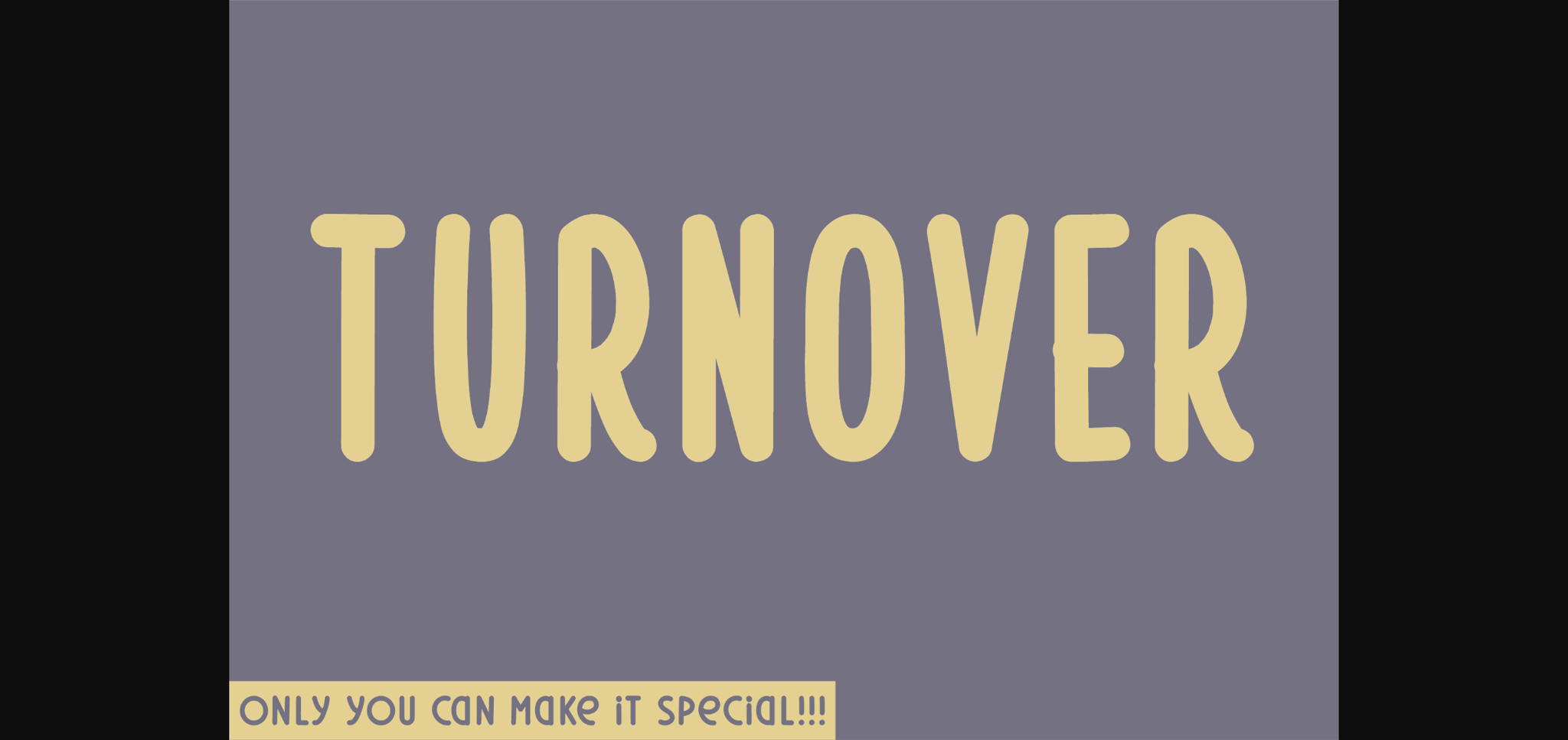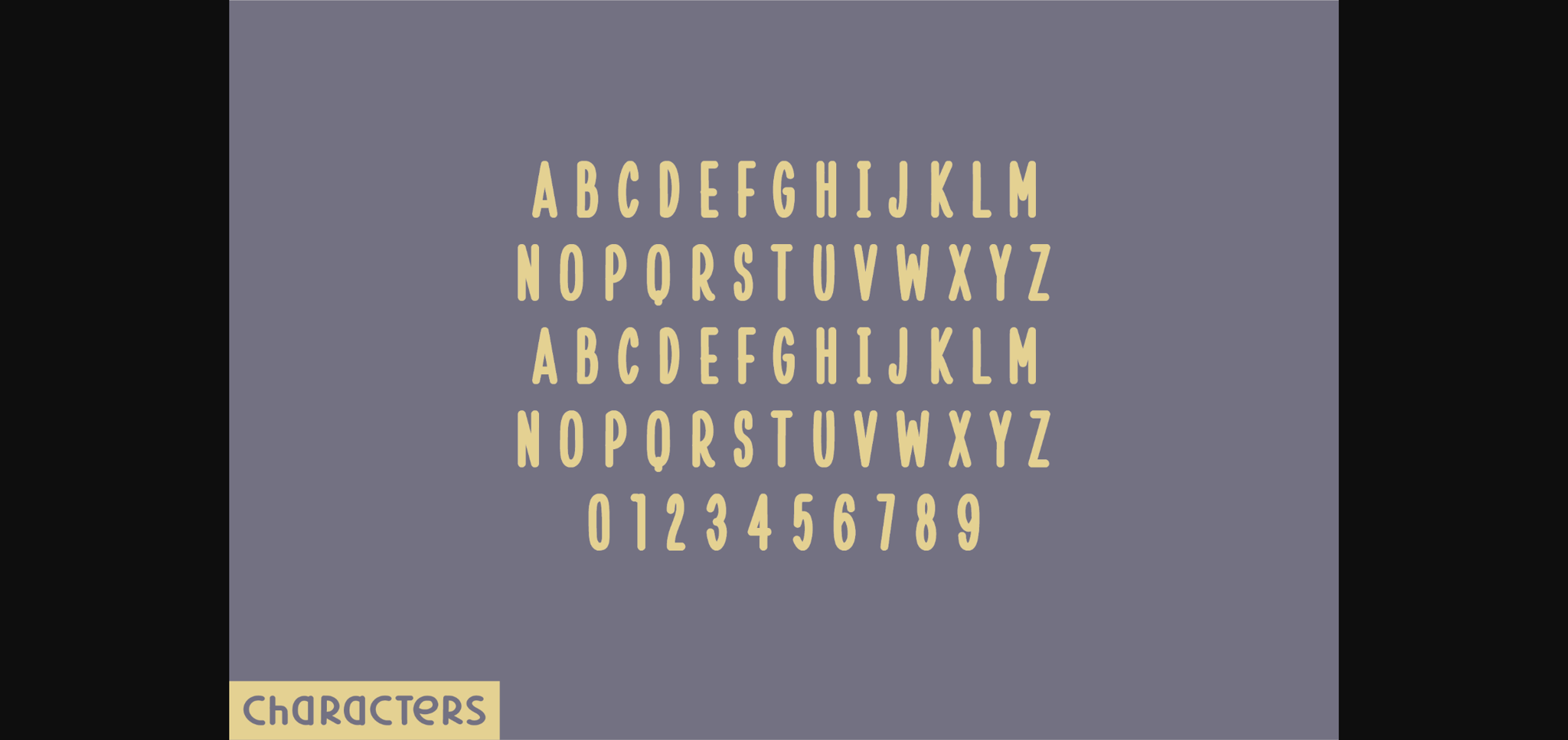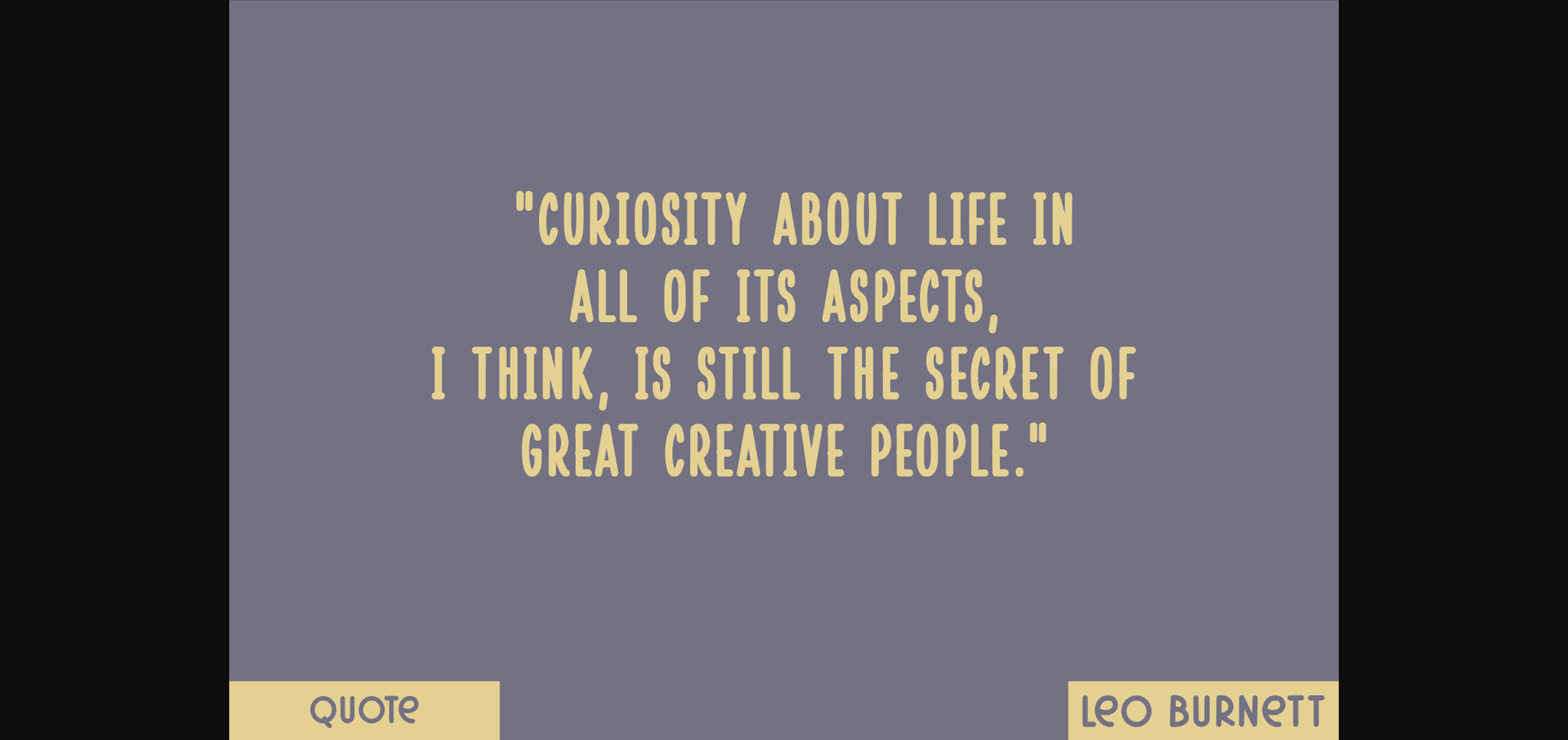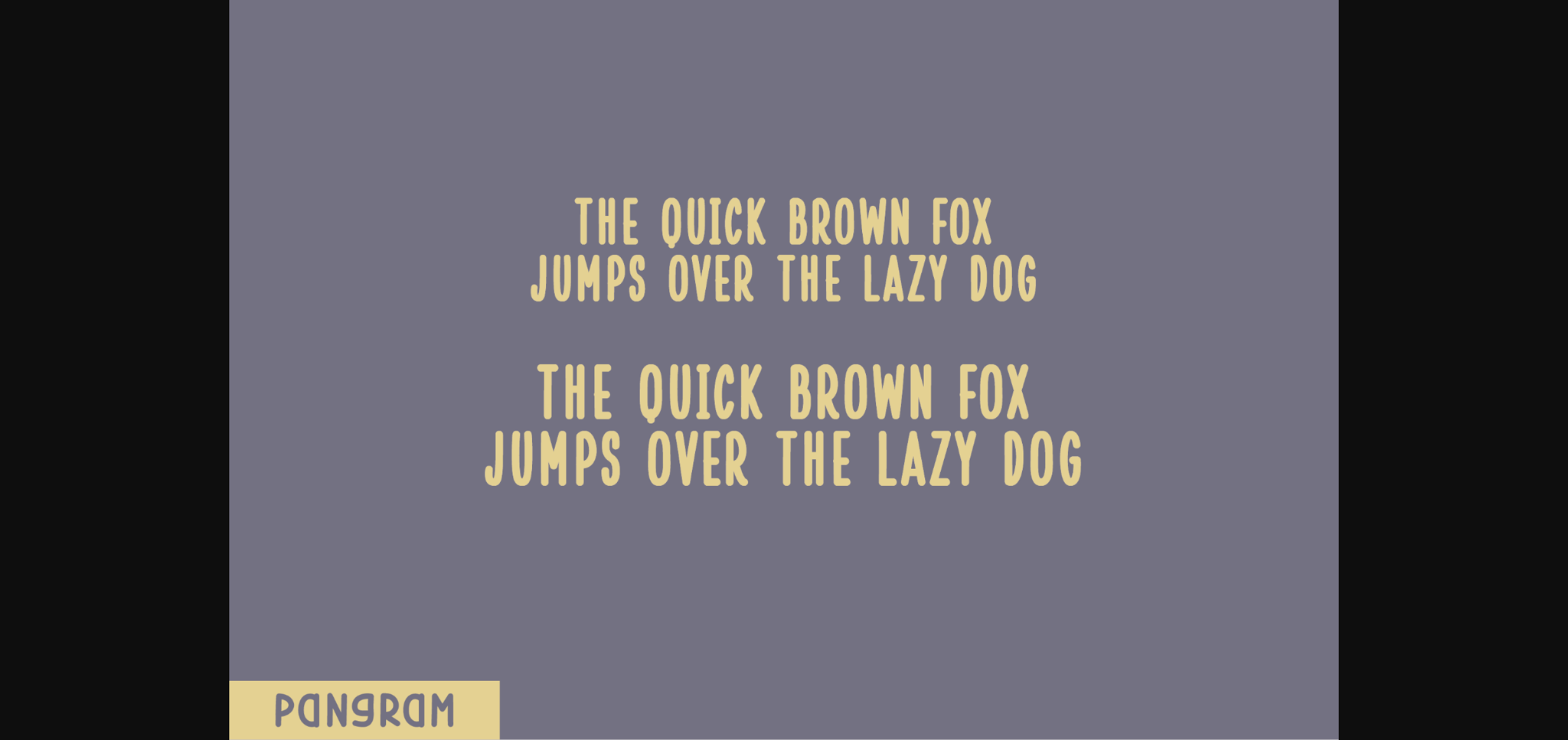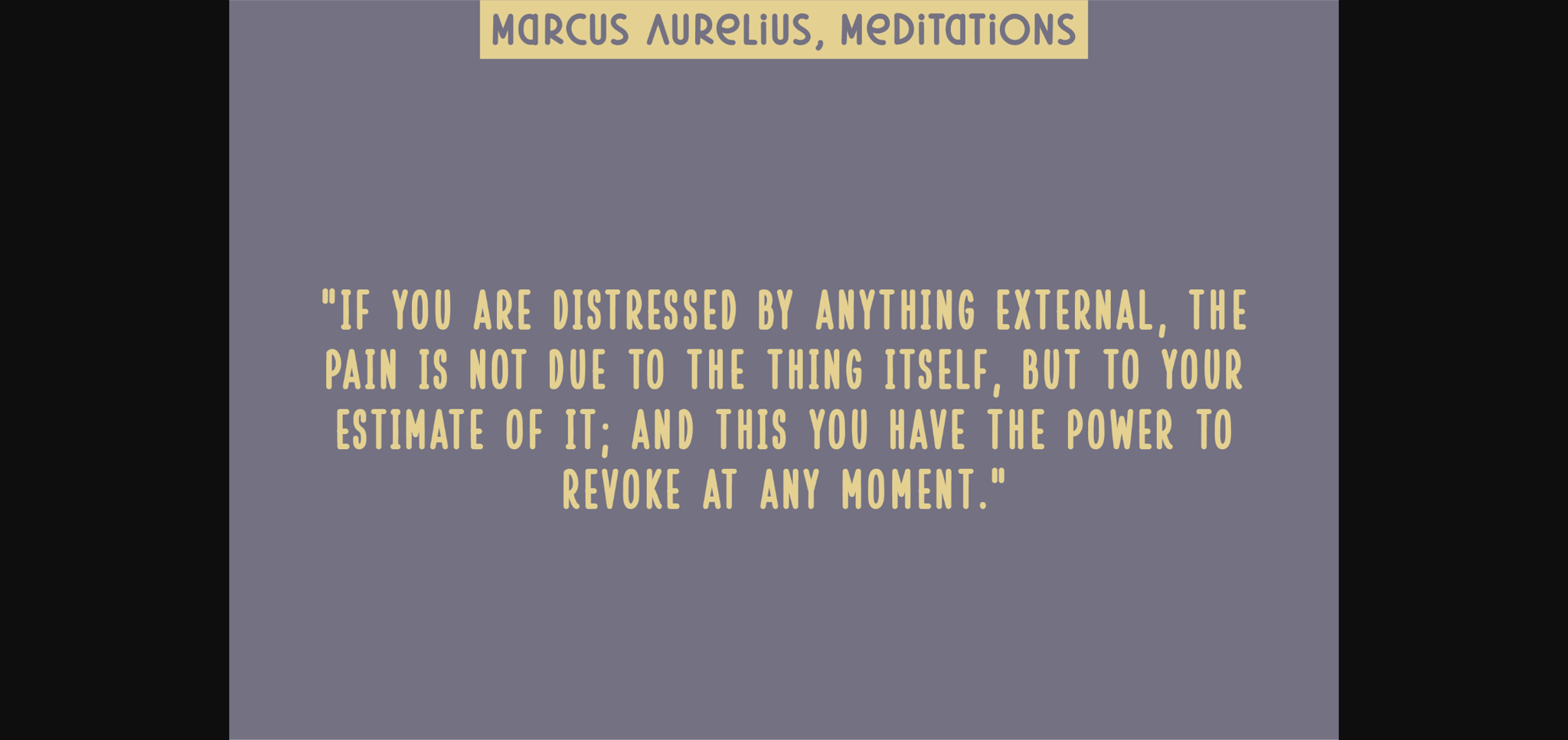
HomeSans Serif FontsTurnover Font Sans Serif Fonts Turnover Font FacebookXPinterestWhatsApp 1 of 7 ... Turnover Font Poster 2... Turnover Font Poster 3... Turnover Font Poster 4... Turnover Font Poster 5... Turnover Font Poster 6... Turnover Font Poster 7... About Turnover Font Turnover is a natural sans serif font created without changing a single node in each character’s indentation – this makes this font very interesting and unique. Perfect for quotes, notes, tees, and any product design. DOWNLOAD NOW People also explored Melodie Font Happy Nurse Font The Sweetheart Font Helber Font Golden Janky Font Baby Playground Font Fondest Font Sugar Sweet Font Denver Font 516 0 TagsTurnover Font Previous articleRockyroad FontNext articleSpaghetti Font LEAVE A REPLY Cancel reply Comment: Please enter your comment! Name:* Please enter your name here Email:* You have entered an incorrect email address! Please enter your email address here Website: Save my name, email, and website in this browser for the next time I comment. Personal Use Free Angola Beach Personal Use Free Read more about this font Rozalyn Personal Use Free Read more about this font Panaroe Personal Use Free Read more about this font The 10 Best Handwriting Fonts to Add Personality to Your Designs Blog Read more about this font BLOG Free vs Paid Fonts: Why Investing in Premium Fonts Is Worth It Free vs Paid Fonts: Why Premium Fonts Are Worth It in 2025 The debate of free vs paid fonts continues in the design world. While... Elegant Wedding Invitation Fonts – Handwritten & Script Fonts To increase your work productivity, choose the most readable fonts. Free Fonts Risk: Why Free Fonts Can Be Dangerous for Designers